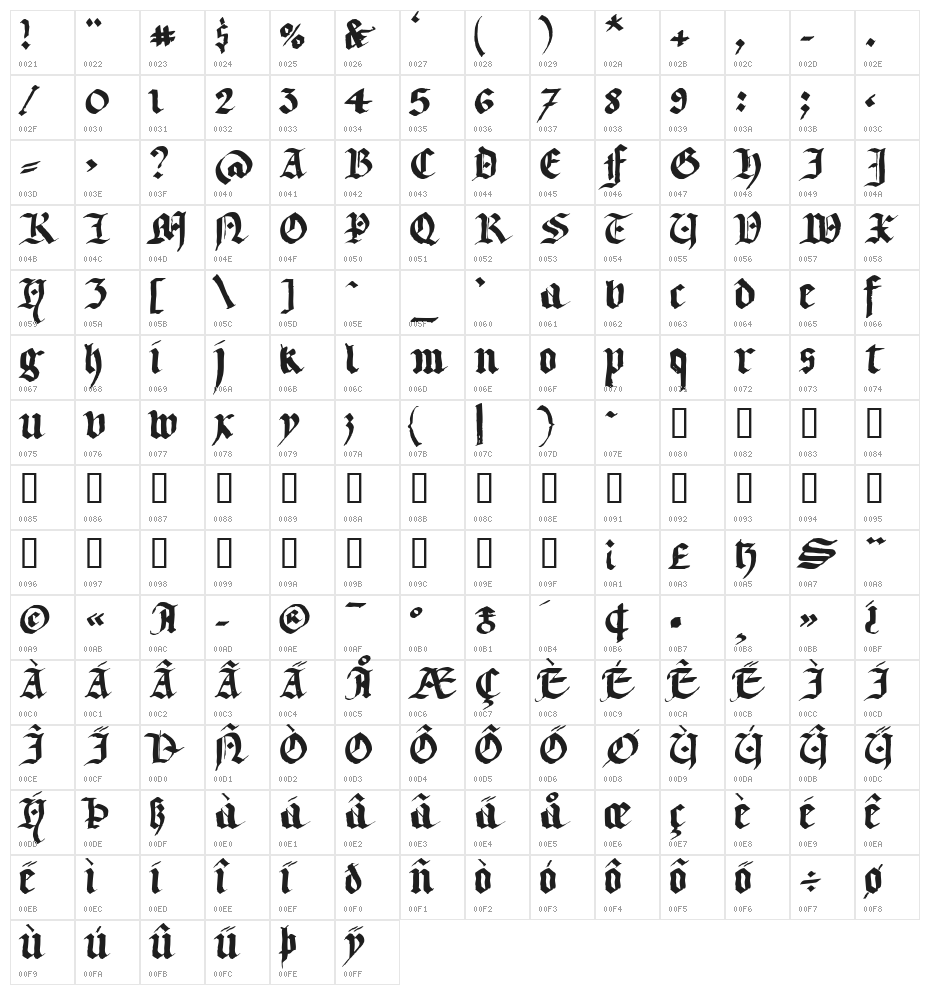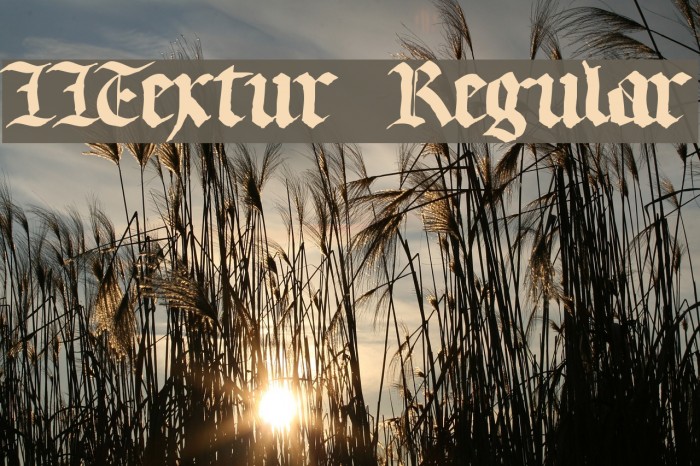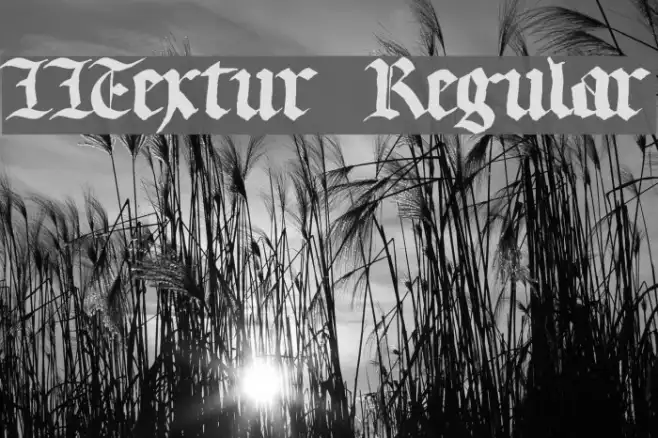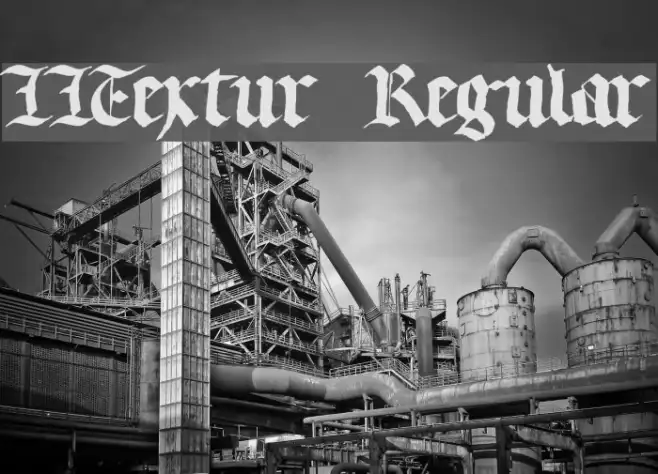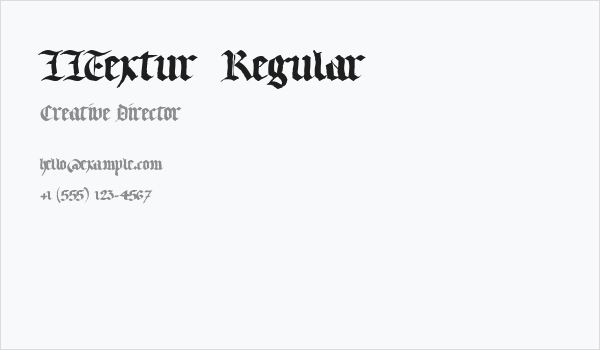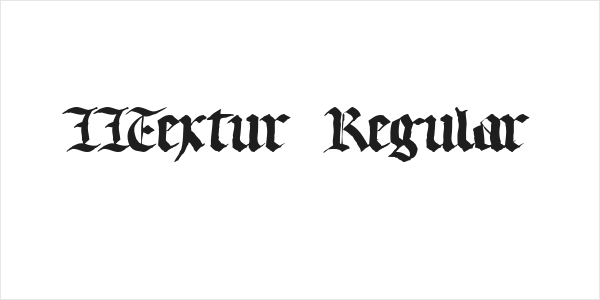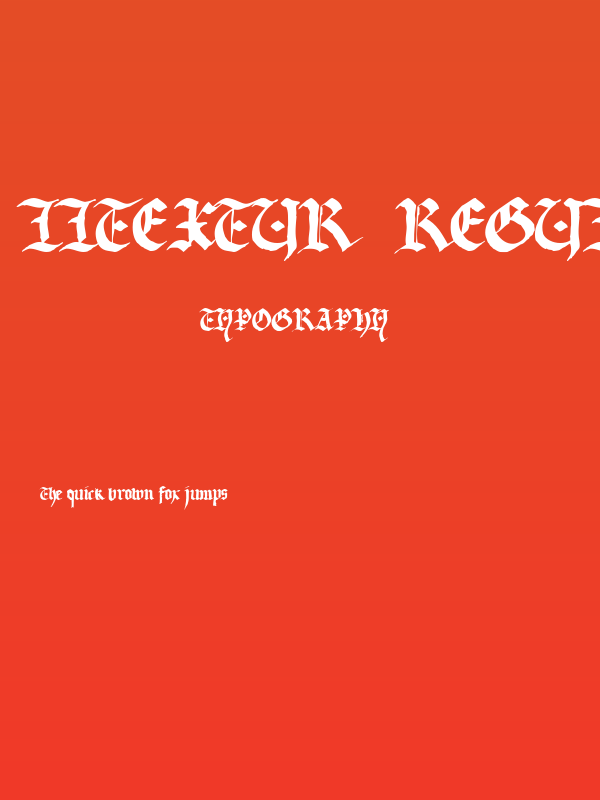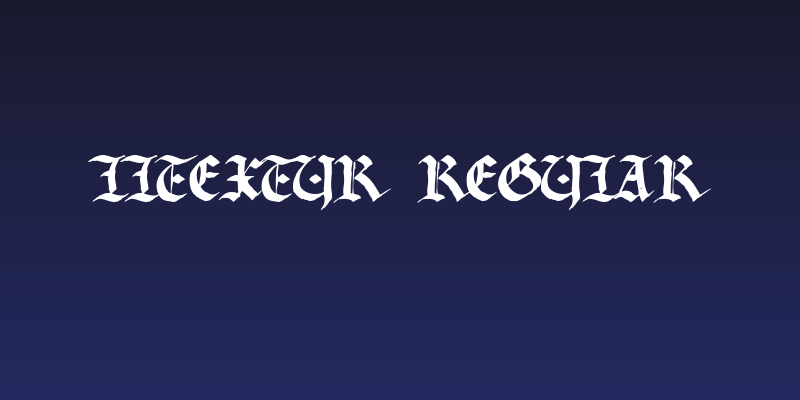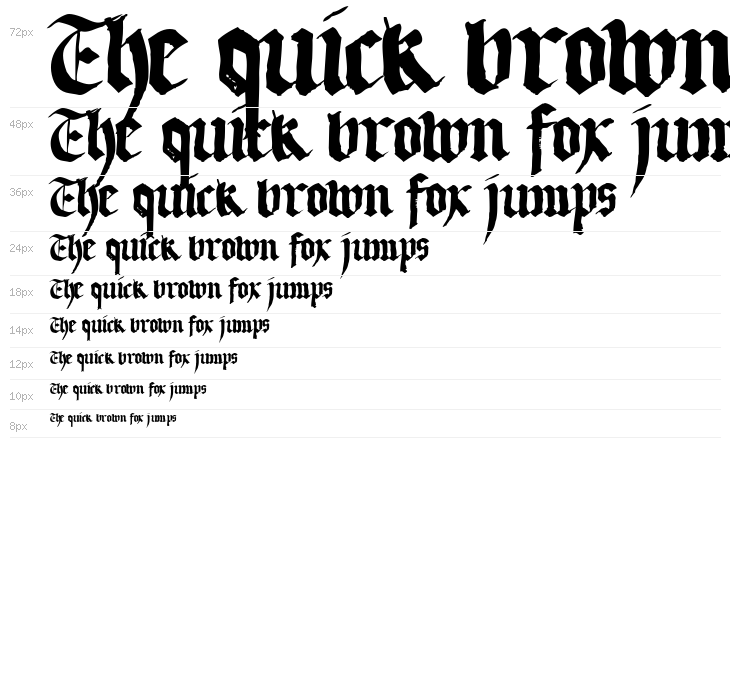
LLTextur Regular Font
LLTextur Regular Description
This font is a striking example of blackletter typography, characterized by its bold, angular strokes and intricate detailing. The uppercase and lowercase letters exhibit a traditional Gothic style, with sharp serifs and dramatic flourishes that evoke a sense of historical elegance. The numerals and special characters maintain this aesthetic, ensuring a cohesive look across all glyphs. The overall design is reminiscent of medieval manuscripts, offering a sense of antiquity and formality. The font's bold presence makes it ideal for projects that require a touch of old-world charm and sophistication.
| Proposed Projects | Suitable for historical documents, certificates, book covers, and branding that requires a classic and formal touch. |